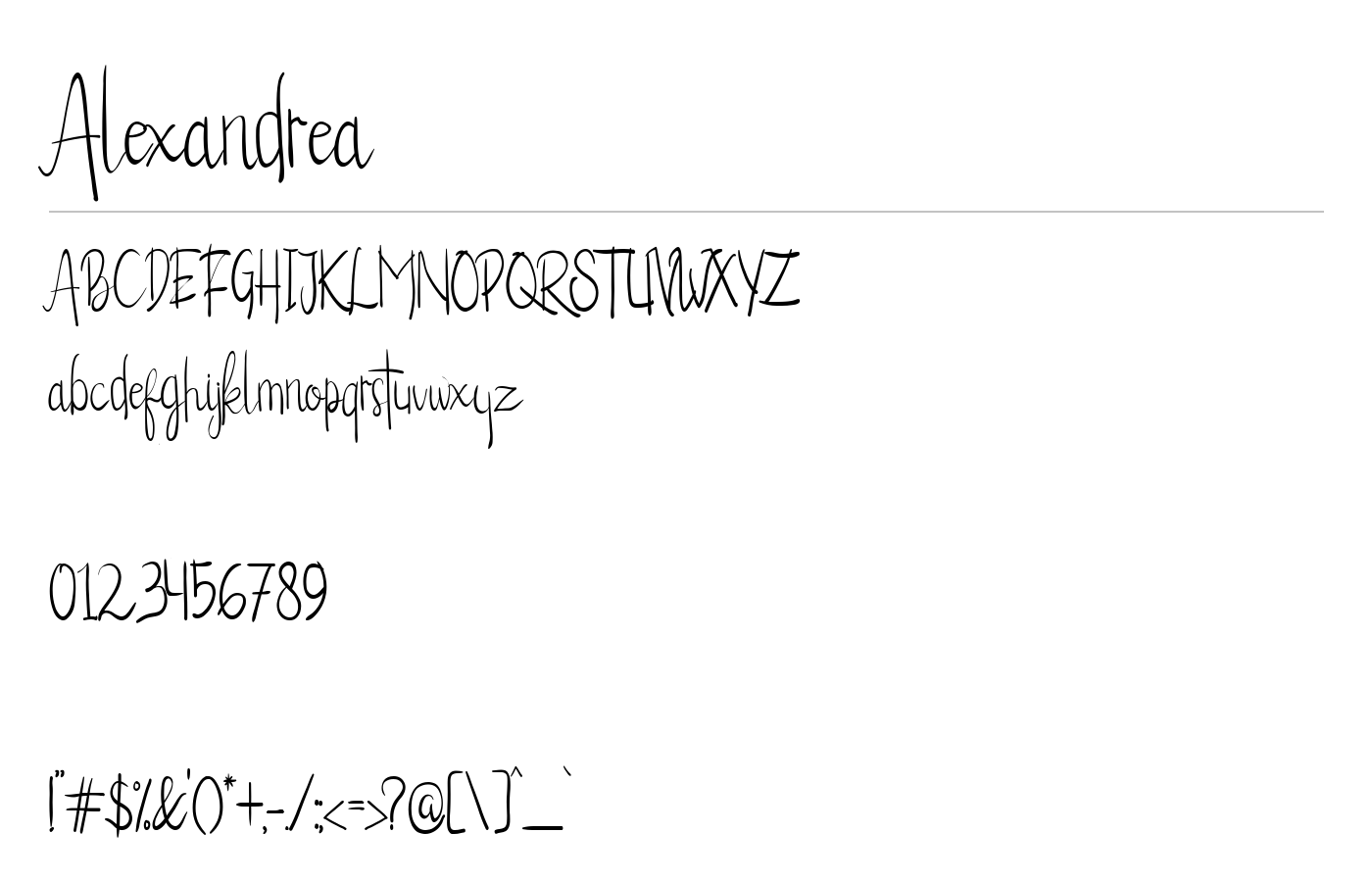
Alexandrea is a slender, handwritten sans serif font with a playful and casual character, featuring tall, narrow letterforms and consistent light stroke weight. Its delicate, slightly irregular lines give a friendly, approachable feel, making it perfect for personal branding, invitations, and creative projects that want an informal, charming touch. This font works well in headlines and display settings where personality and a hand-drawn vibe are desired.
Alexandrea Font
About Alexandrea Font
| Font family | Alexandrea Font |
| Designer | Madatype Studio |